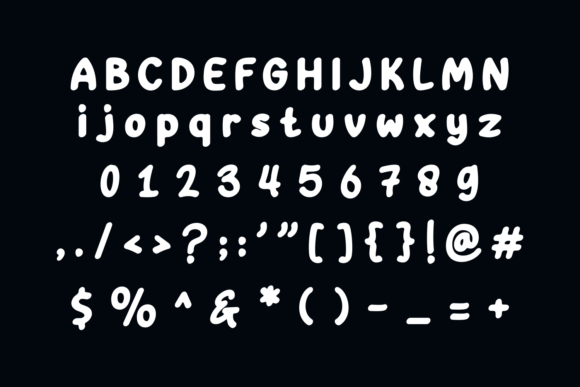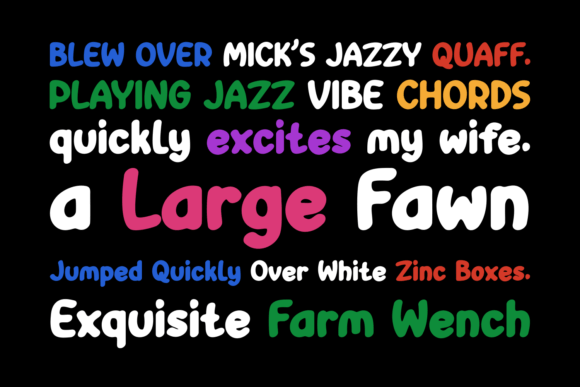
Introduction to Parmes Font
Have you ever been in the middle of a creative project, staring at a blank page or screen, and suddenly, the perfect font pops into your mind? For designers, this is a moment of pure magic. And for those who are still searching, we’re excited to introduce you to the Parmes Font – a cool and modern sans serif font that’s sure to elevate your next design project.
Whether you’re working on a logo, brochure, or website, the Parmes Font is a valuable addition to any designer’s toolkit. Its clean lines and minimalist aesthetic make it an ideal choice for a wide range of creative projects, from corporate identity to digital interfaces.
Key Features of Parmes Font
- High-quality design resource with a wide range of creative possibilities for your project.
- Unique, modern design with a transparent background, perfect for layered designs and creative projects.
- Designed to be versatile and easy to use, making it a valuable addition to any design resource collection.
- Perfect for use in graphic design, digital art, and other creative projects where a high-quality font is essential.
Honest Review: Parmes Font
I recently had the chance to work with the Parmes Font and I must say it’s a solid addition to any designer’s toolkit. As a design resource, it’s hard to beat the quality and versatility of this font.
- ✨ High-quality design: The Parmes Font has a clean, modern aesthetic that makes it perfect for a wide range of creative projects.
- ✨ Transparent background: The font has a transparent background, which makes it easy to place over images or other design elements.
While the Parmes Font is an excellent choice for many projects, there are a few limitations to be aware of:
- ⚠️ Limited font sizes: The font only comes in a limited range of sizes, which may not be ideal for larger or smaller text.
- ⚠️ Limited character set: The font only includes a standard character set, which may not be sufficient for more complex projects.
Overall, I’m really impressed with the Parmes Font. It’s a great choice for designers who need a high-quality, versatile font for their creative projects. Just be aware of the limitations and plan accordingly.
Parmes Font
Tips for Getting the Most Out of Parmes Font
To get the most out of Parmes Font, use it for headings and titles in your design. Its transparent background makes it perfect for creating visually appealing graphics.
Parmes Font is ideal for:
- Graphic design projects.
- Marketing materials.
- Branding and logos.